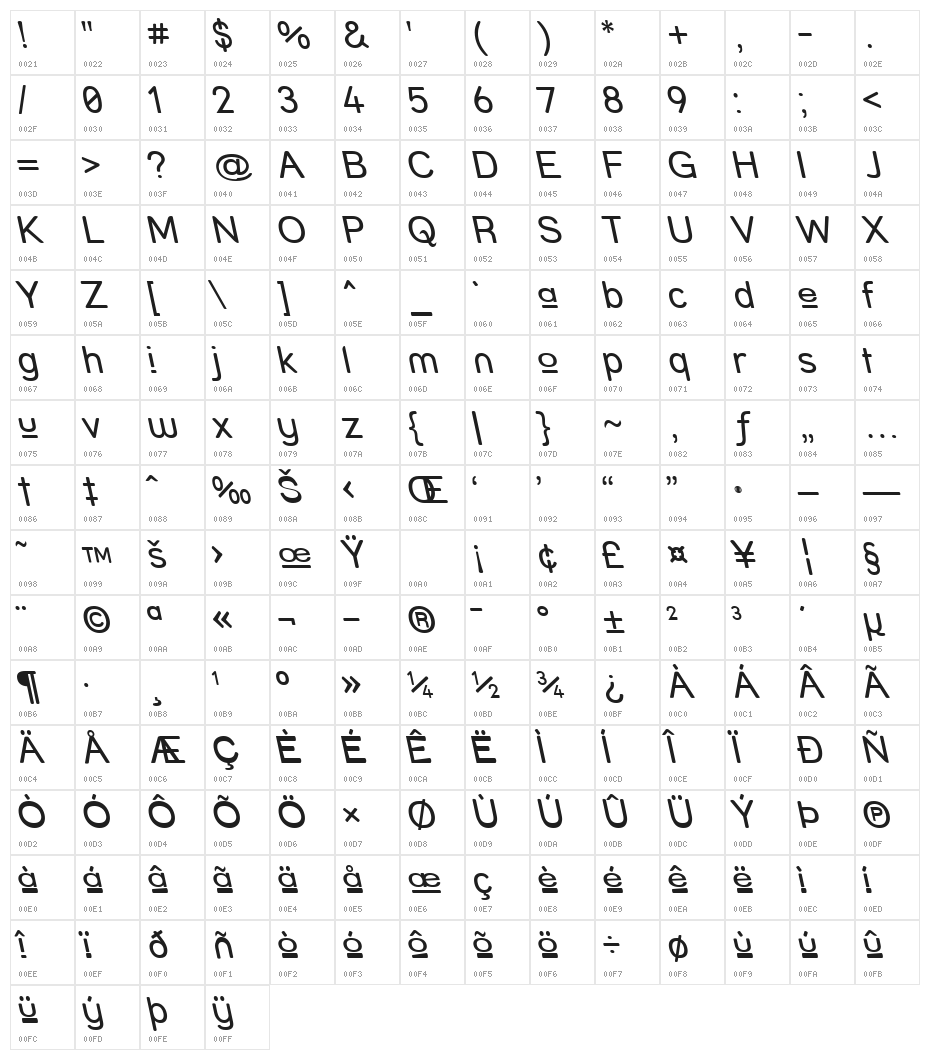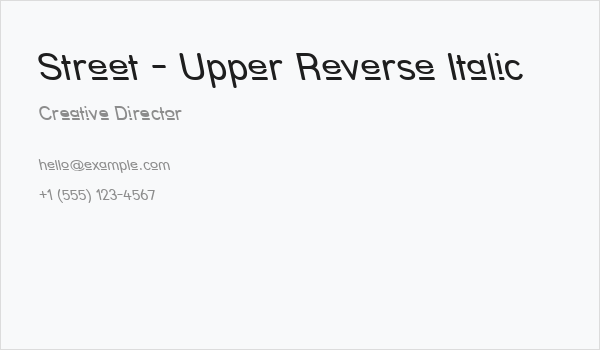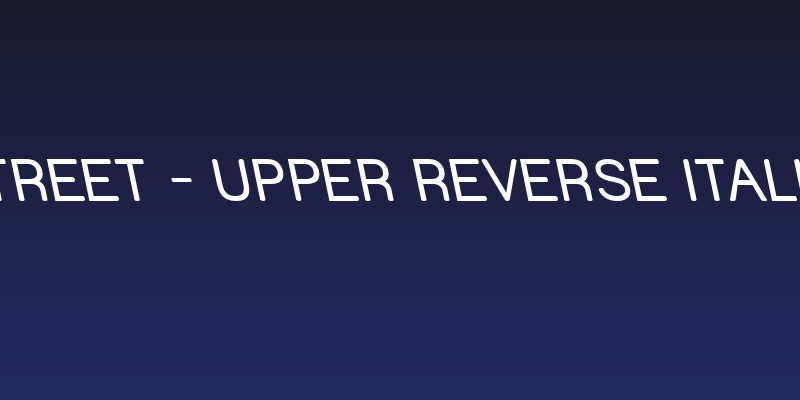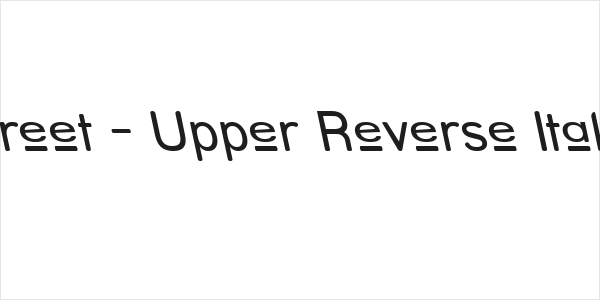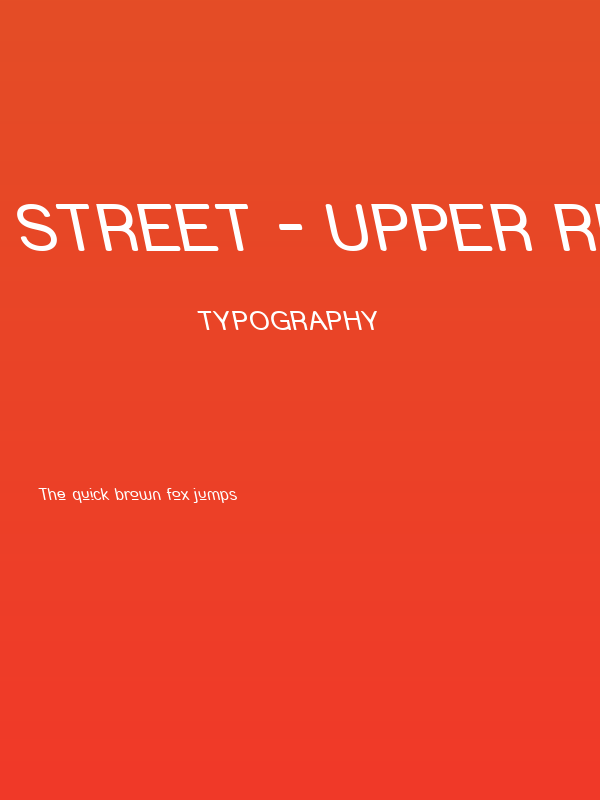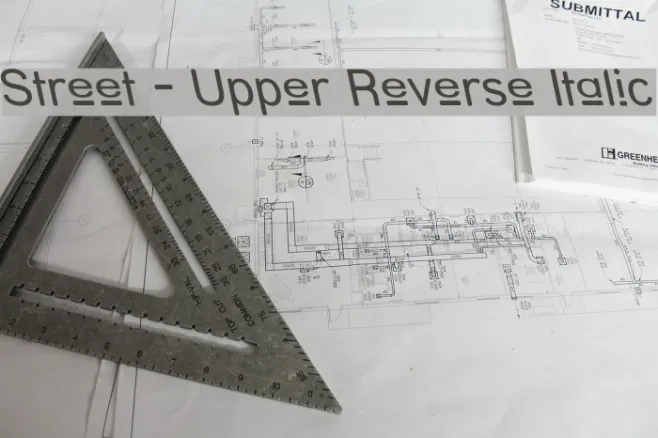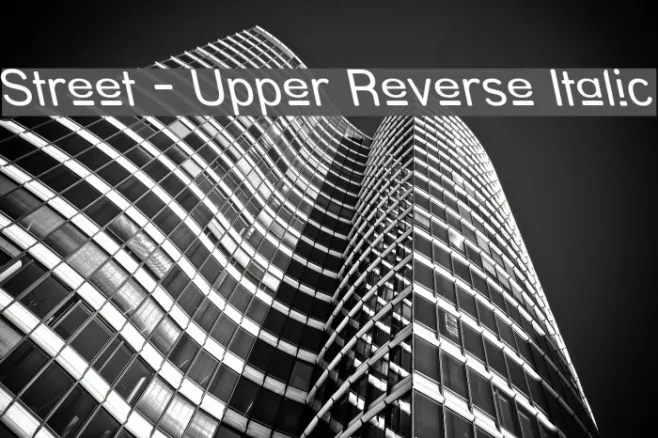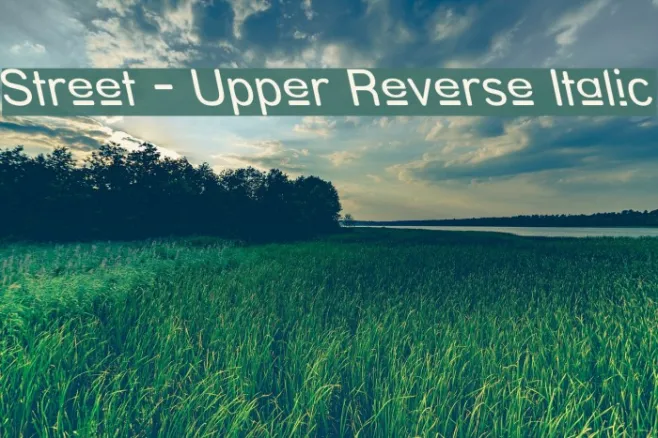
Street - Upper Reverse Italic Font
Street - Upper Reverse Italic Description
This font features a modern sans-serif design with a distinct reverse italic style, where the slant of the characters leans to the left rather than the traditional right. The characters are clean and rounded, providing a smooth and approachable appearance. The uppercase and lowercase letters maintain a consistent stroke width, contributing to a uniform and balanced look. The numerals and special characters are designed to match the overall aesthetic, ensuring cohesion across all elements. This font's unique reverse slant adds a creative twist, making it stand out in various design contexts.
| Use Case | Headlines, Logos, Advertising |
| Proposed Projects | Ideal for branding, advertising, and creative projects that seek a modern and unconventional look. |